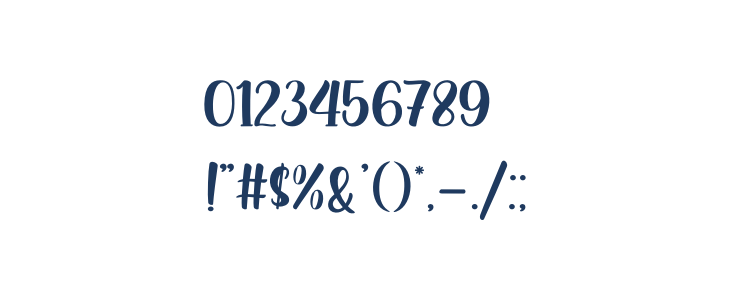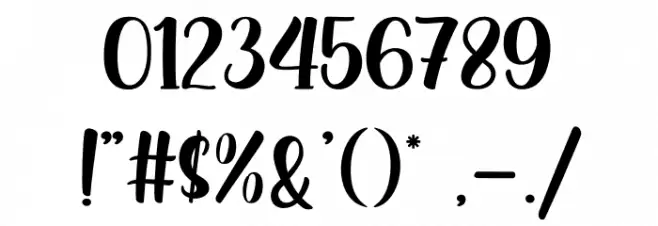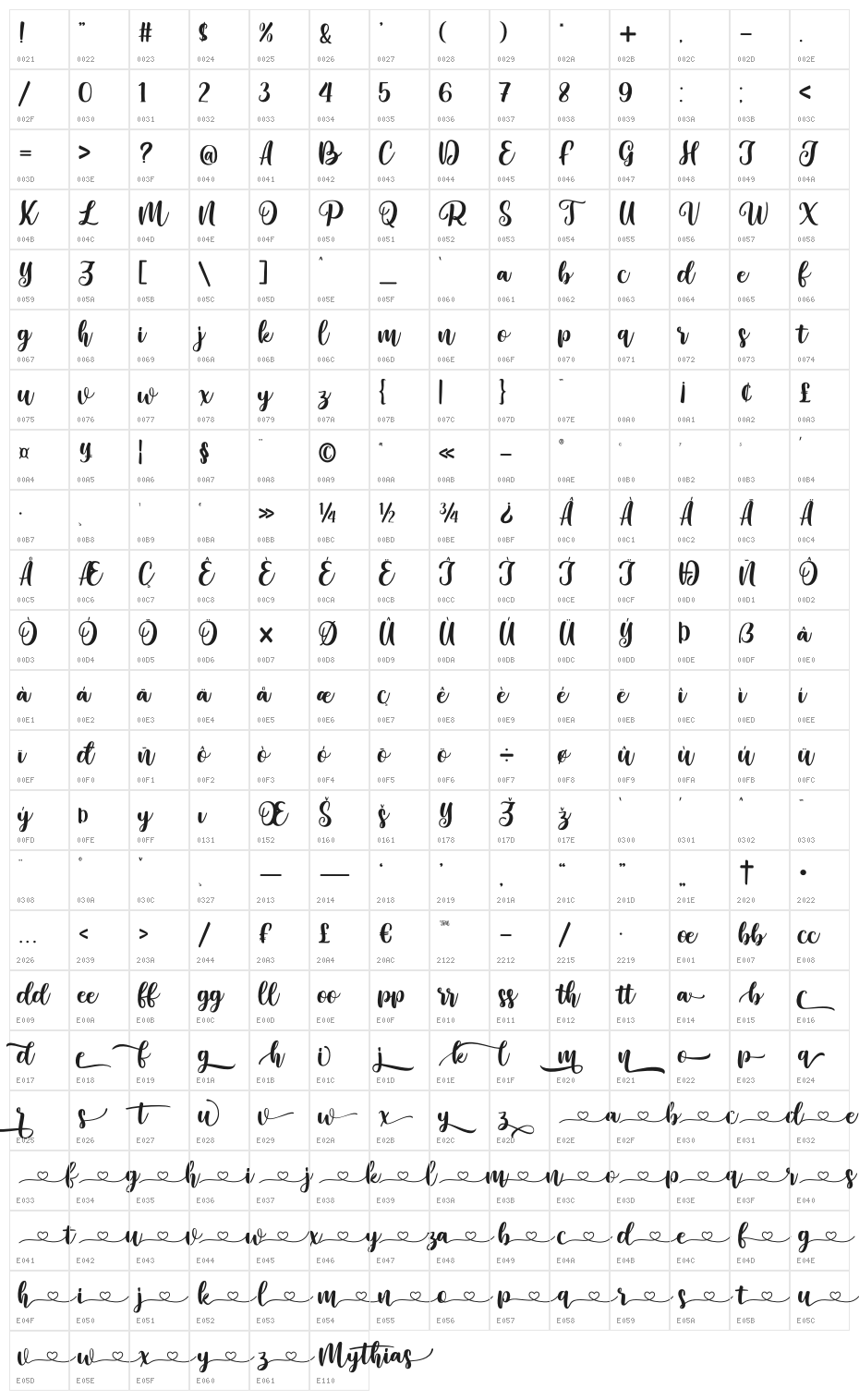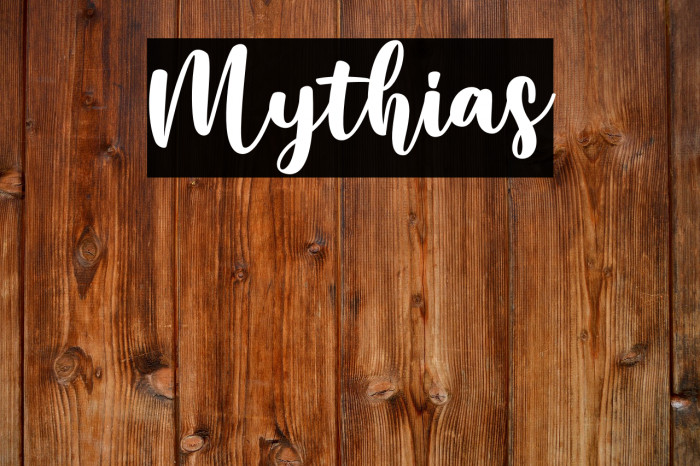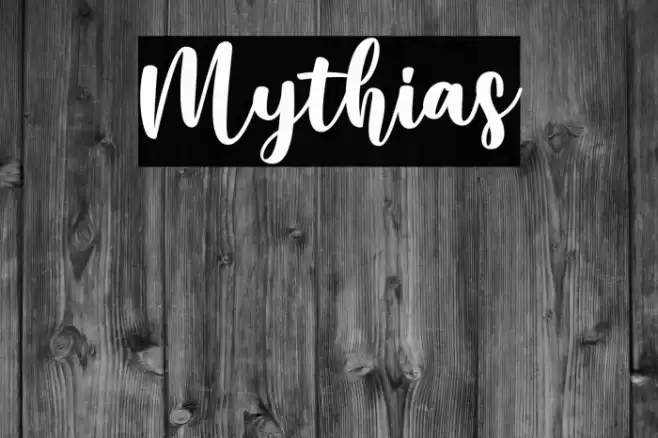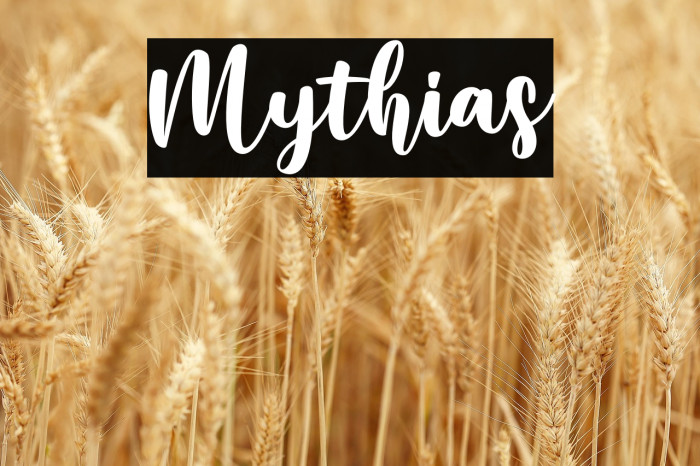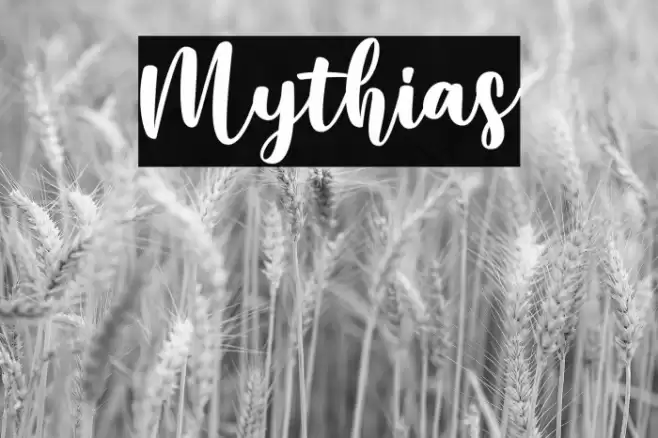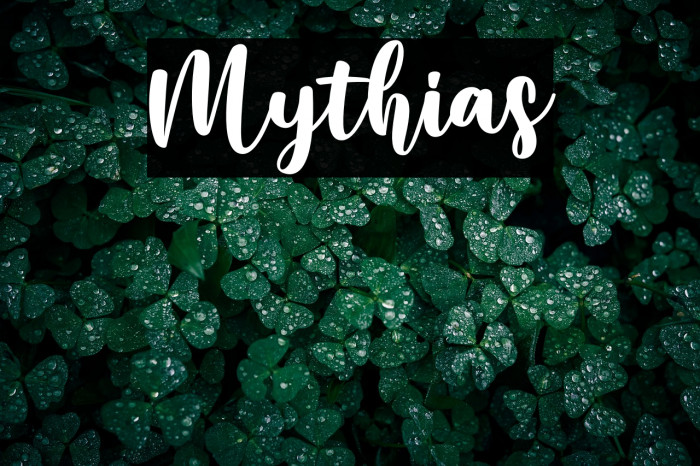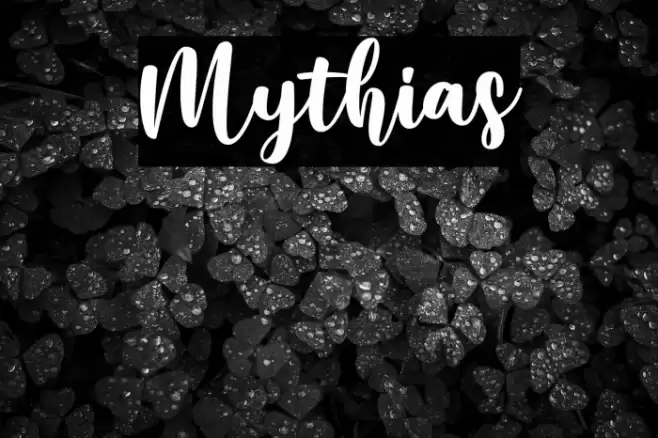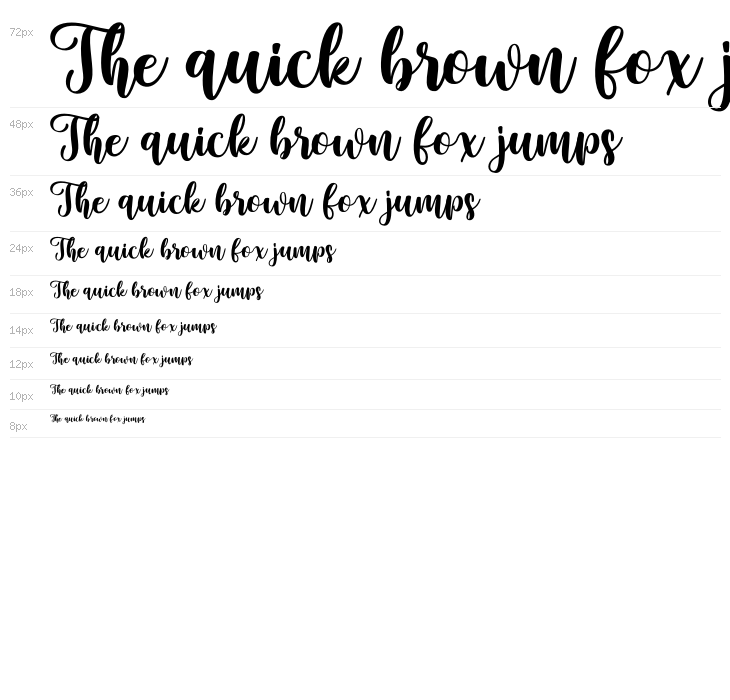
Mythias Font
Mythias Description
This font features a bold and flowing script style, characterized by its smooth, cursive strokes and elegant curves. The uppercase letters are particularly ornate, with sweeping lines that convey a sense of movement and grace. The lowercase letters maintain a consistent style, with rounded forms and a slightly playful touch. Numbers and special characters are designed to match the overall aesthetic, ensuring a cohesive look across all elements. This font is ideal for projects that require a touch of sophistication and charm.